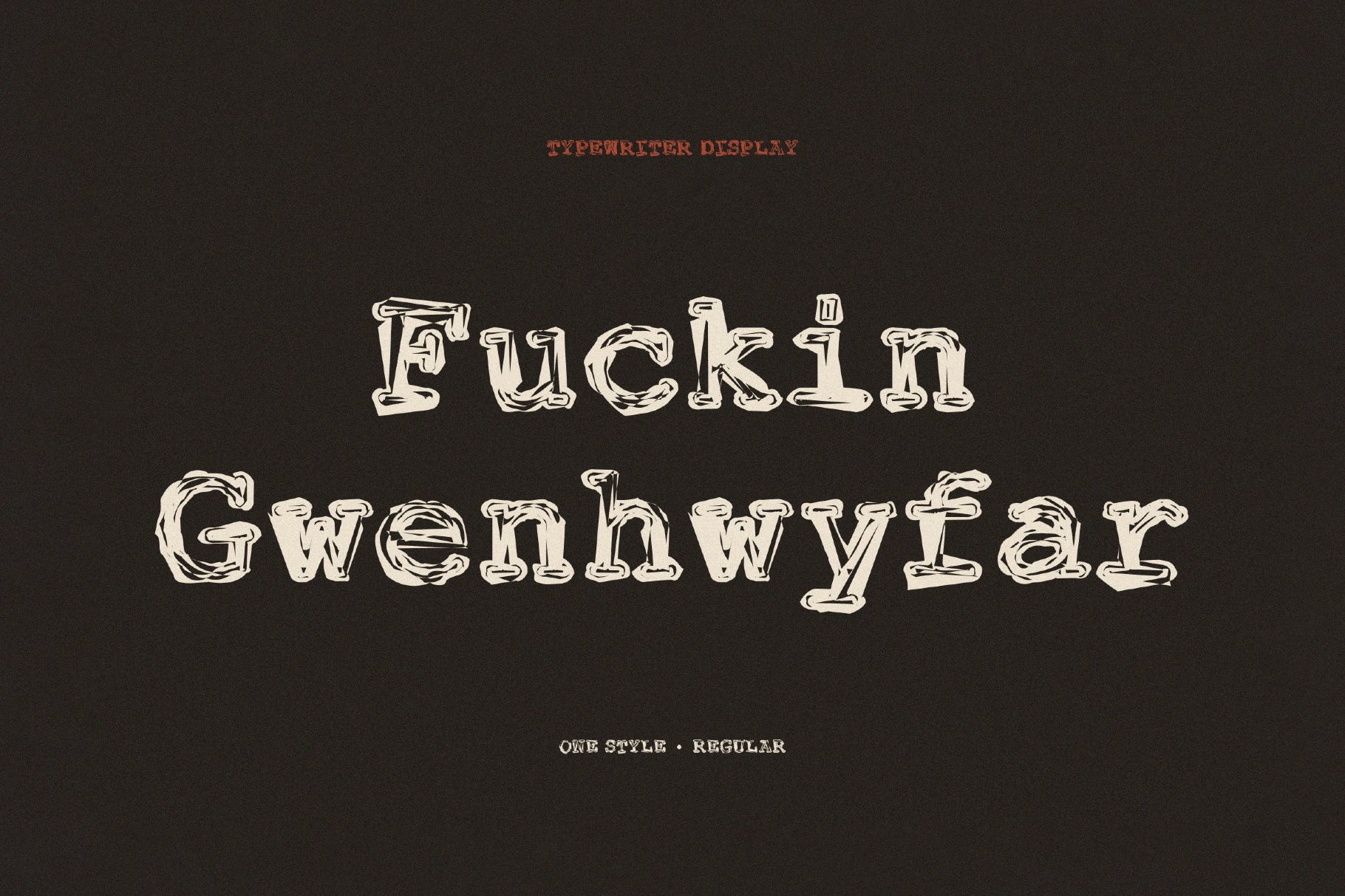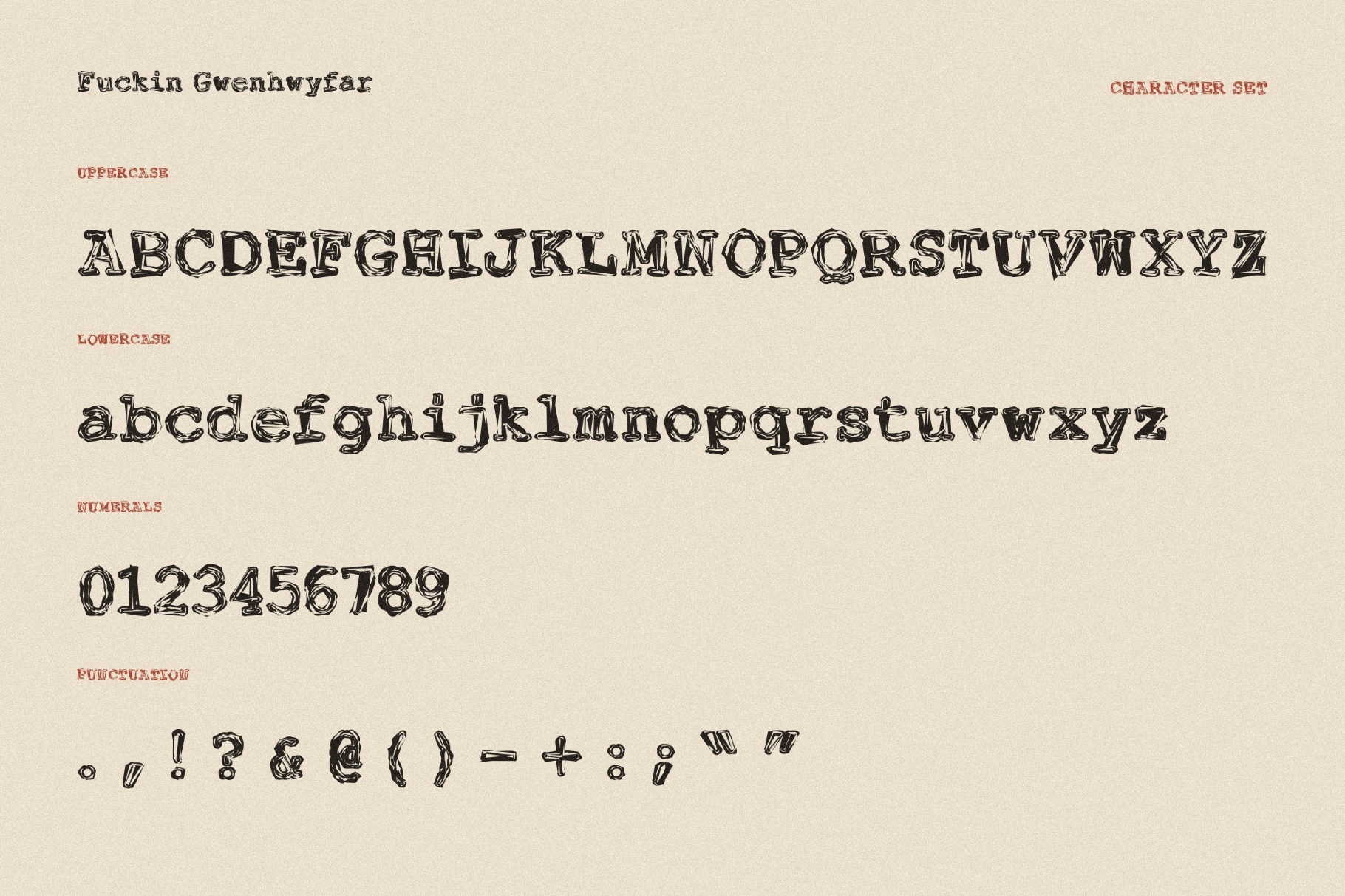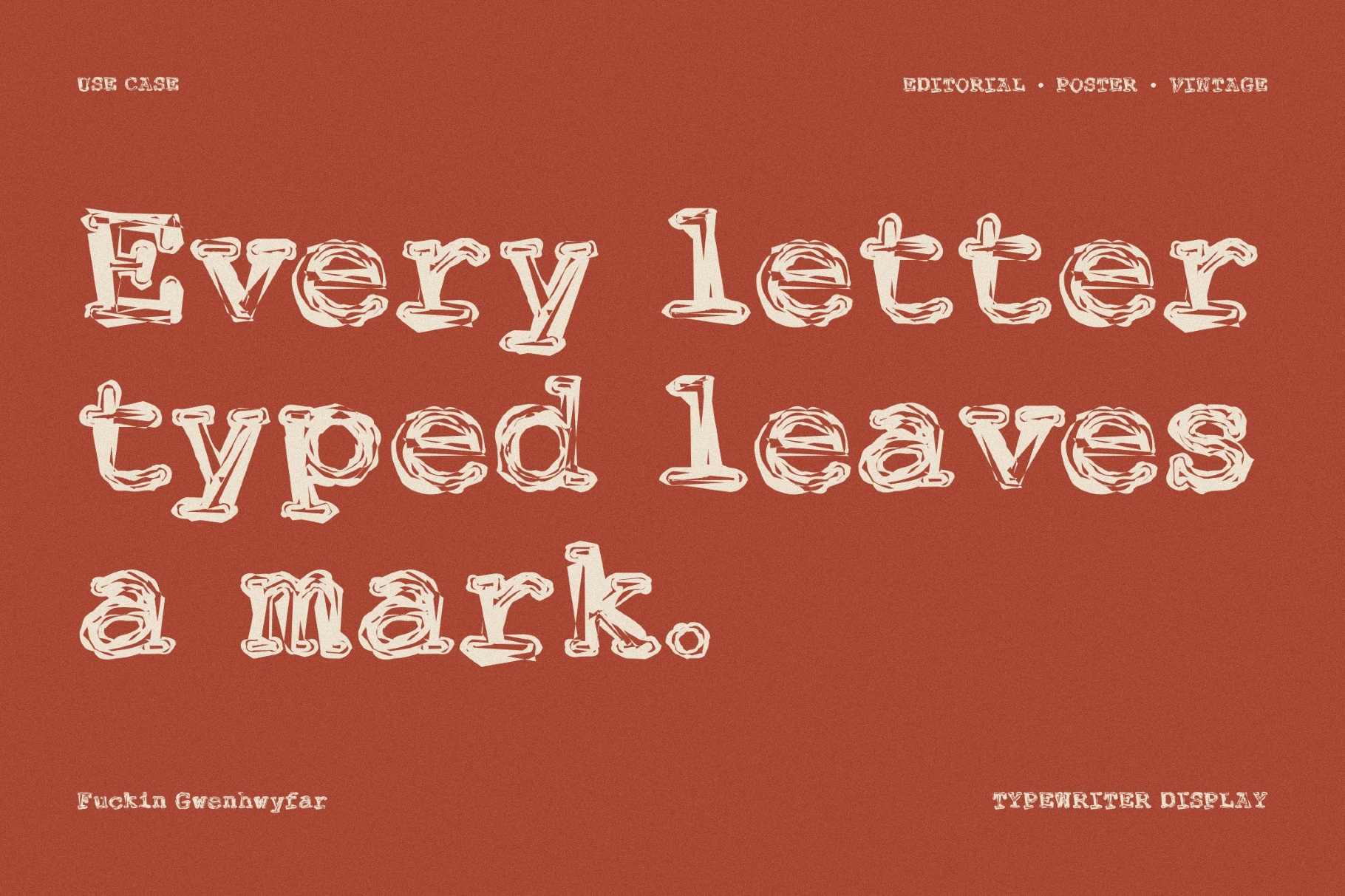
Fuckin Gwenhwyfar - Grunge Typewriter Font
Fuckin Gwenhwyfar is a grunge typewriter font turned into a battered medieval manuscript hybrid that recalls punk magazines, Xeroxed chapbooks, and Gothic marginalia. The letters suggest a tone somewhere between literary sarcasm and underground publishing grit.
The font's ragged ink, uneven spacing, and bookish unrest suit editorials, indie publishing, occult flyers, poetry covers, theater posters, underground album art, and quote graphics.
• uppercase and lowercase letters;
• numbers, punctuation, and symbols;
• multilingual support across extended Latin, Cyrillic, and Greek scripts;
• ligatures and stylistic alternatives.